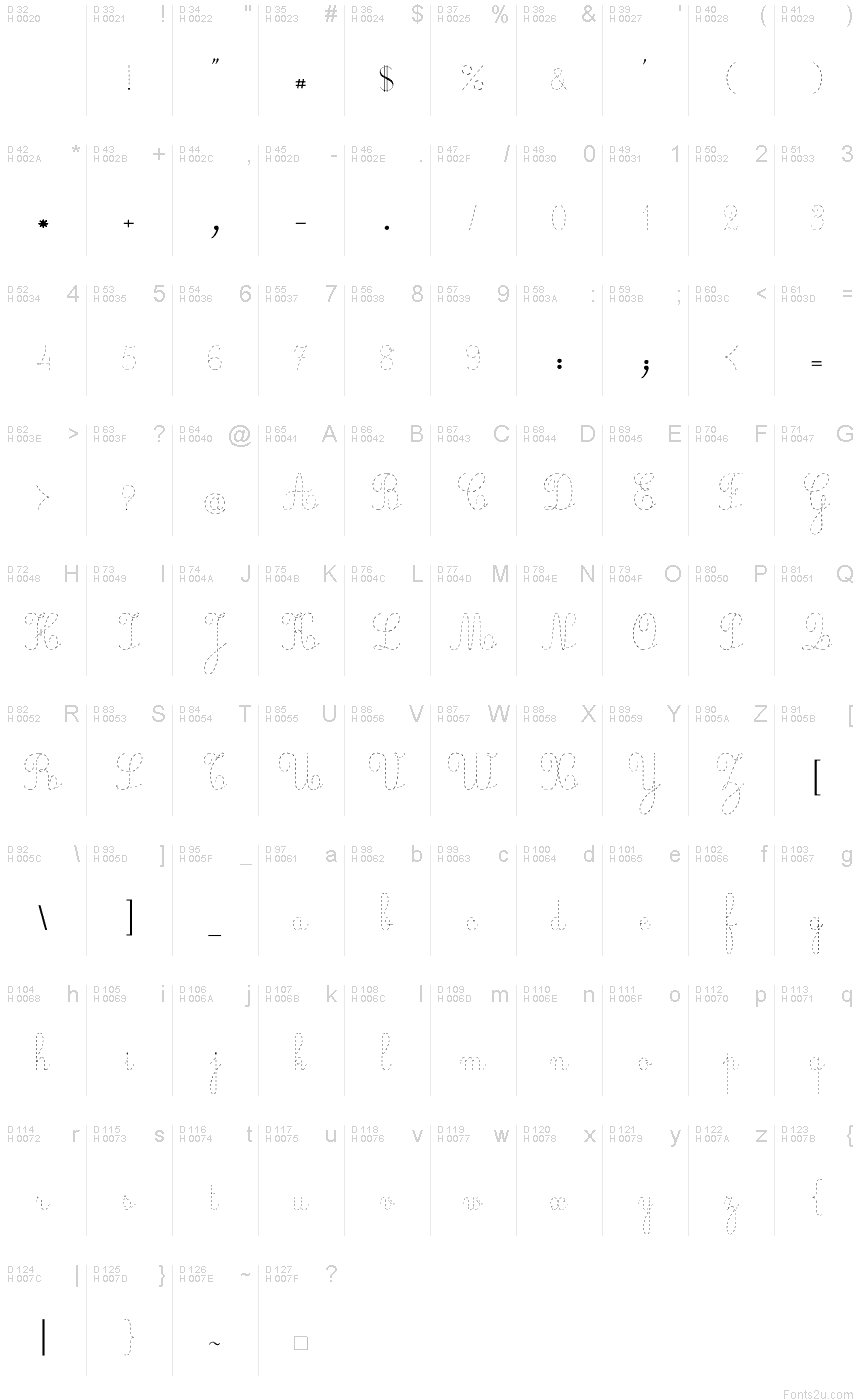
Ecolier_pointillés
Ecolier_pointillés font by Douteau Jean-Marie is a free dotted school script font. Its light, broken strokes echo pencil guide marks on handwriting sheets, and the gentle cursive rhythm feels patient and familiar. That makes it especially useful when you need something kids can follow easily without the page looking cluttered or harsh.
Using Ecolier_pointillés works beautifully for handwriting worksheets, name-tracing cards, classroom labels, homeschooling packs, activity books, learning posters, and preschool printables. Keep Ecolier_pointillés fairly large so the dotted paths stay crisp, and pair this free font with a plain sans serif for instructions or lesson titles.